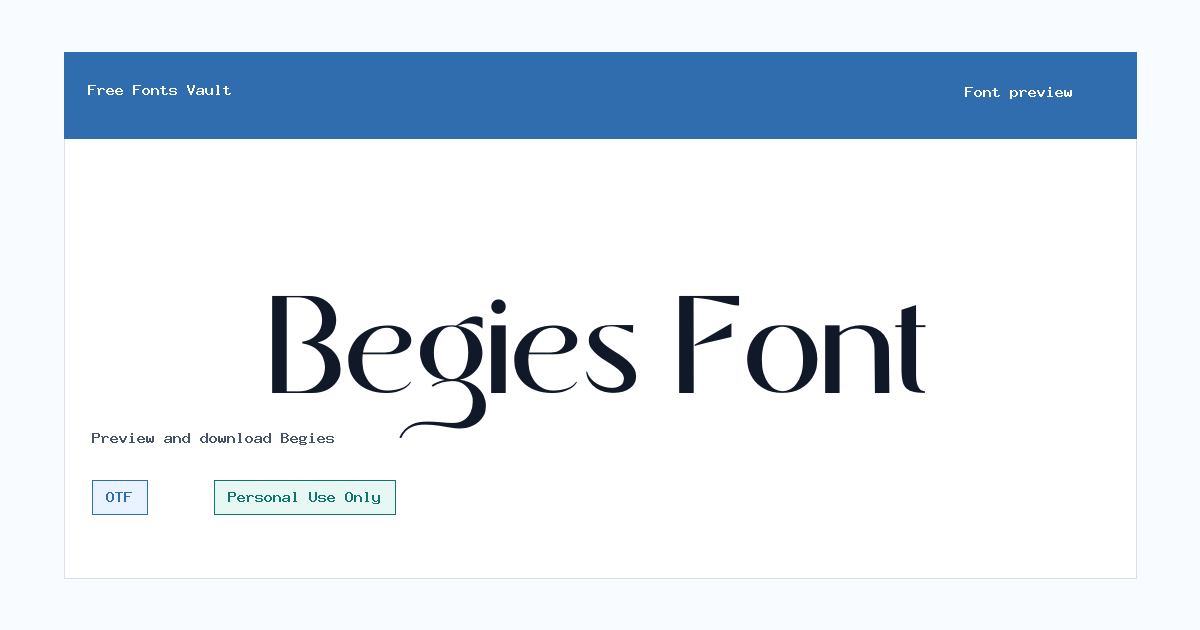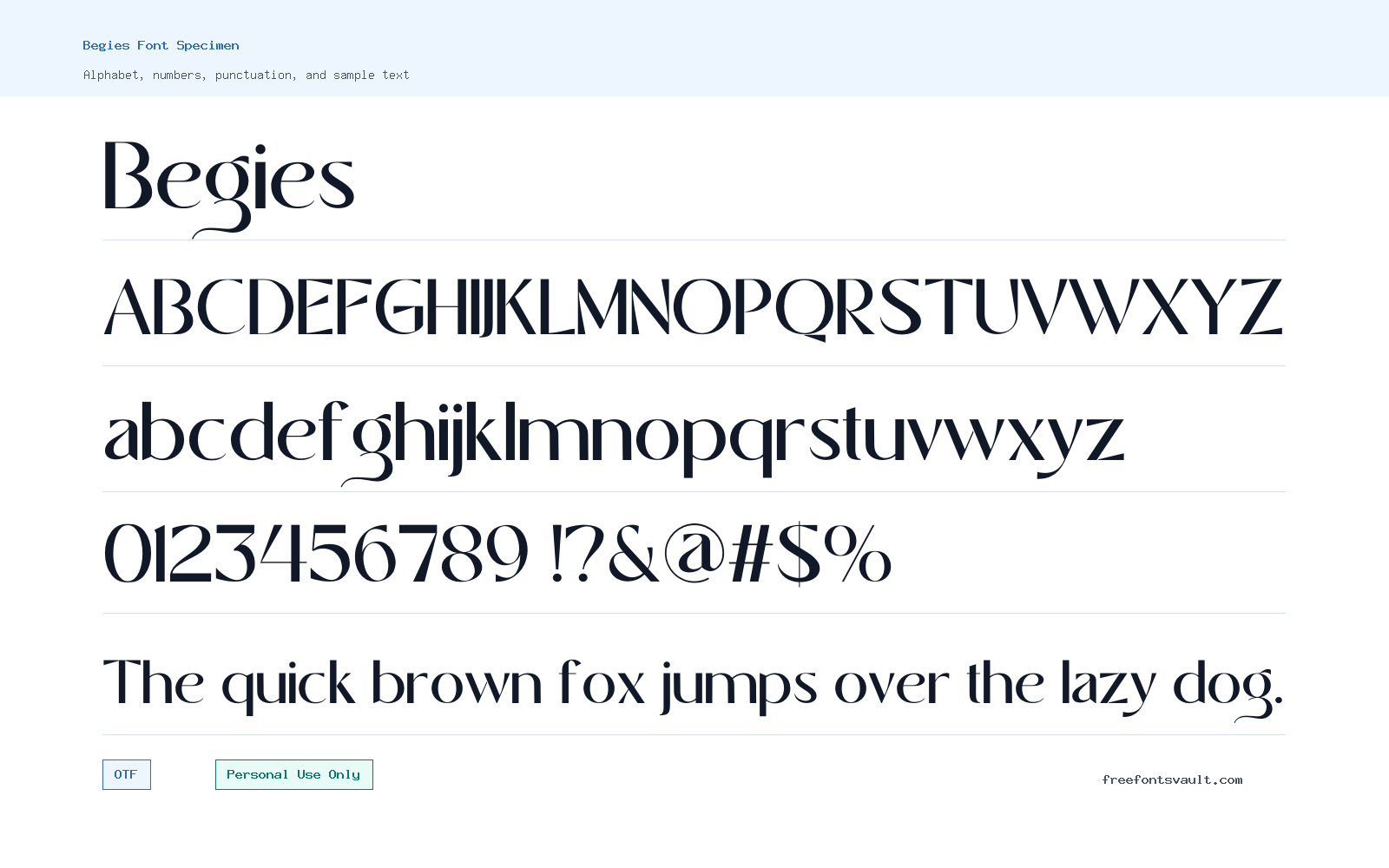
Begies
Begies is a sans serif font family with regular and italic styles, suited to visitors who want a clean typeface to test in headings, display text, and personal design drafts.
Begies has a straightforward sans serif base, which makes it a practical choice when you need text that feels modern without relying on heavy decoration. The regular style is the safer starting point for names, short titles, social graphics, posters, thumbnails, and personal branding mockups. The italic style gives you a second voice for emphasis, captions, short quotes, or contrast inside the same design. Since the download includes OTF font files, it should work in most common design software that supports OpenType fonts.
- Regular and italic styles for basic emphasis and simple font pairing within the same family
- Personal posters, quote graphics, thumbnails, invitations, and title designs
- Logo drafts, branding concepts, social media images, and short display text during non-commercial design exploration
What kind of font is Begies?
Begies is described in the license text as a sans serif font. It is best tested for short text, headings, and personal design layouts.